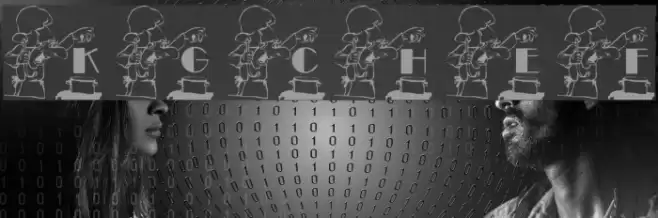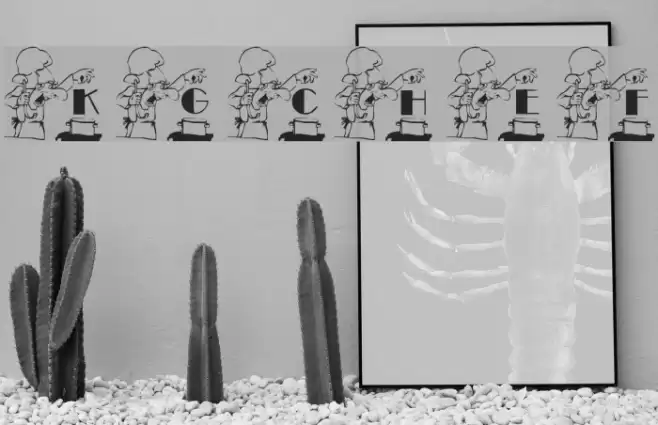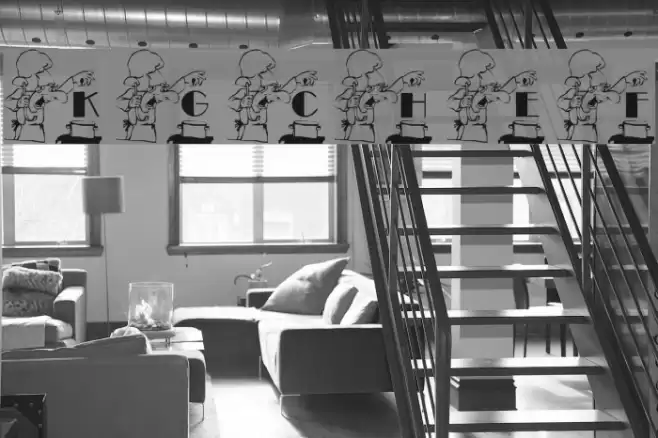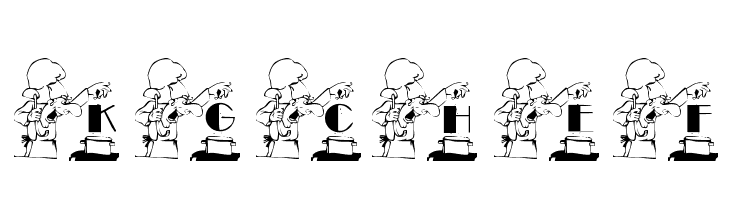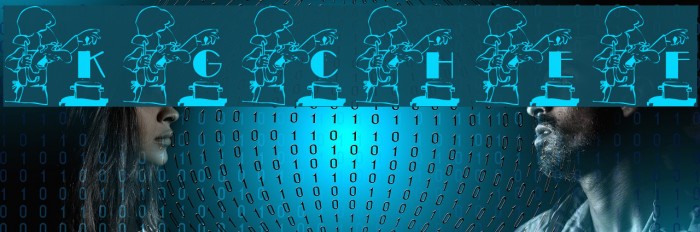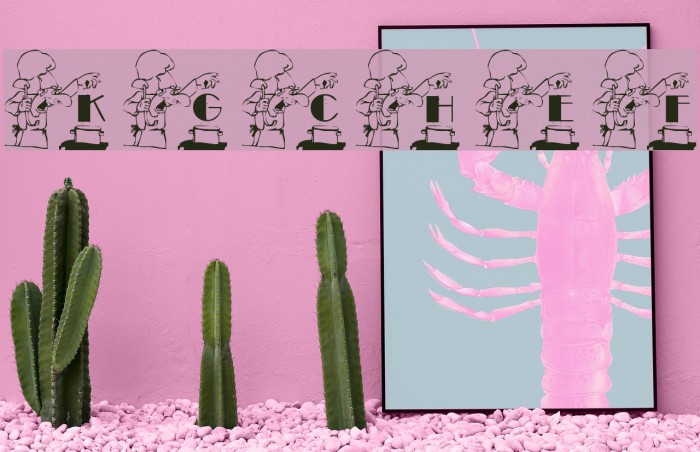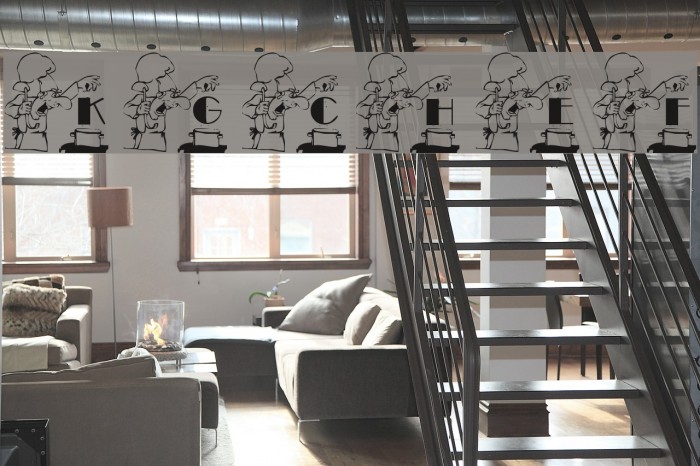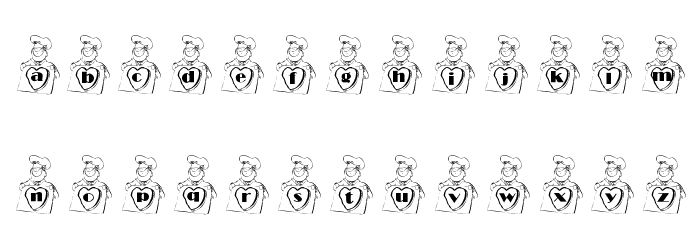
KGCHEF
This playful and whimsical font features characters that are creatively integrated with chef illustrations. Each letter is uniquely designed with a chef character holding or interacting with the letter, adding a fun and thematic element to the typography. The uppercase letters are bold and prominent, while the lowercase letters maintain a consistent style with a slightly softer appearance. The font does not include numbers or special characters, focusing solely on the alphabet. The overall design is decorative and thematic, making it ideal for projects that require a touch of humor and creativity.
A whimsical font with chef-themed characters integrated into each letter.
- Proposed Projects: Ideal for culinary-themed projects, children's books, playful branding, or restaurant menus.
- Overall Style: Decorative
- Use Case: Logos, Headlines, Thematic designs